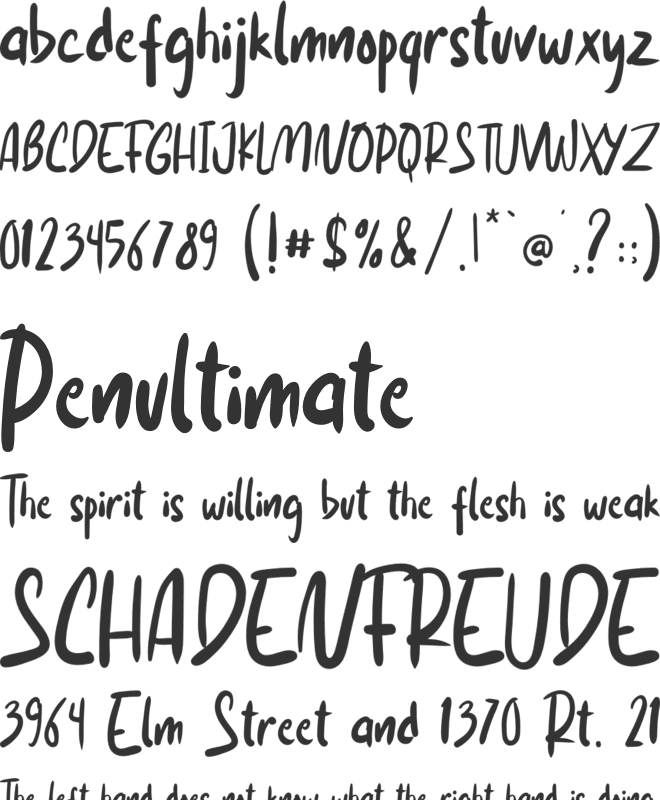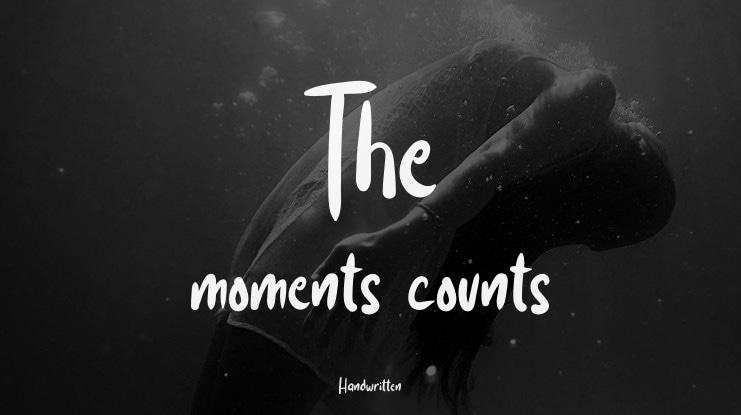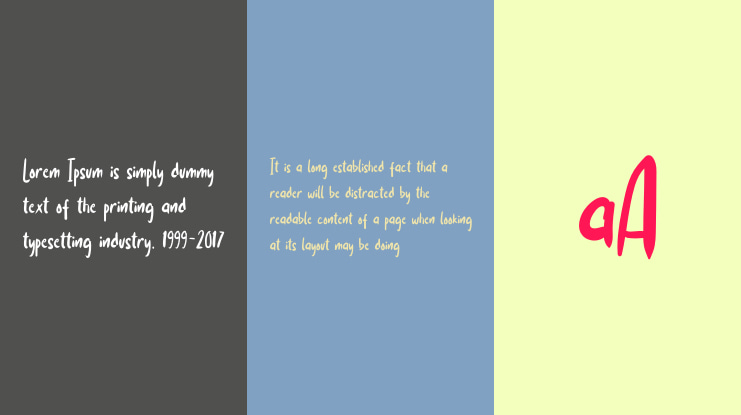
The moments counts Font
The Moment Counts - a beautifully crafted handwritten font that captures the essence of natural, effortless writing. With its smooth, flowing strokes and organic character, this font adds a touch of warmth and authenticity to every design.